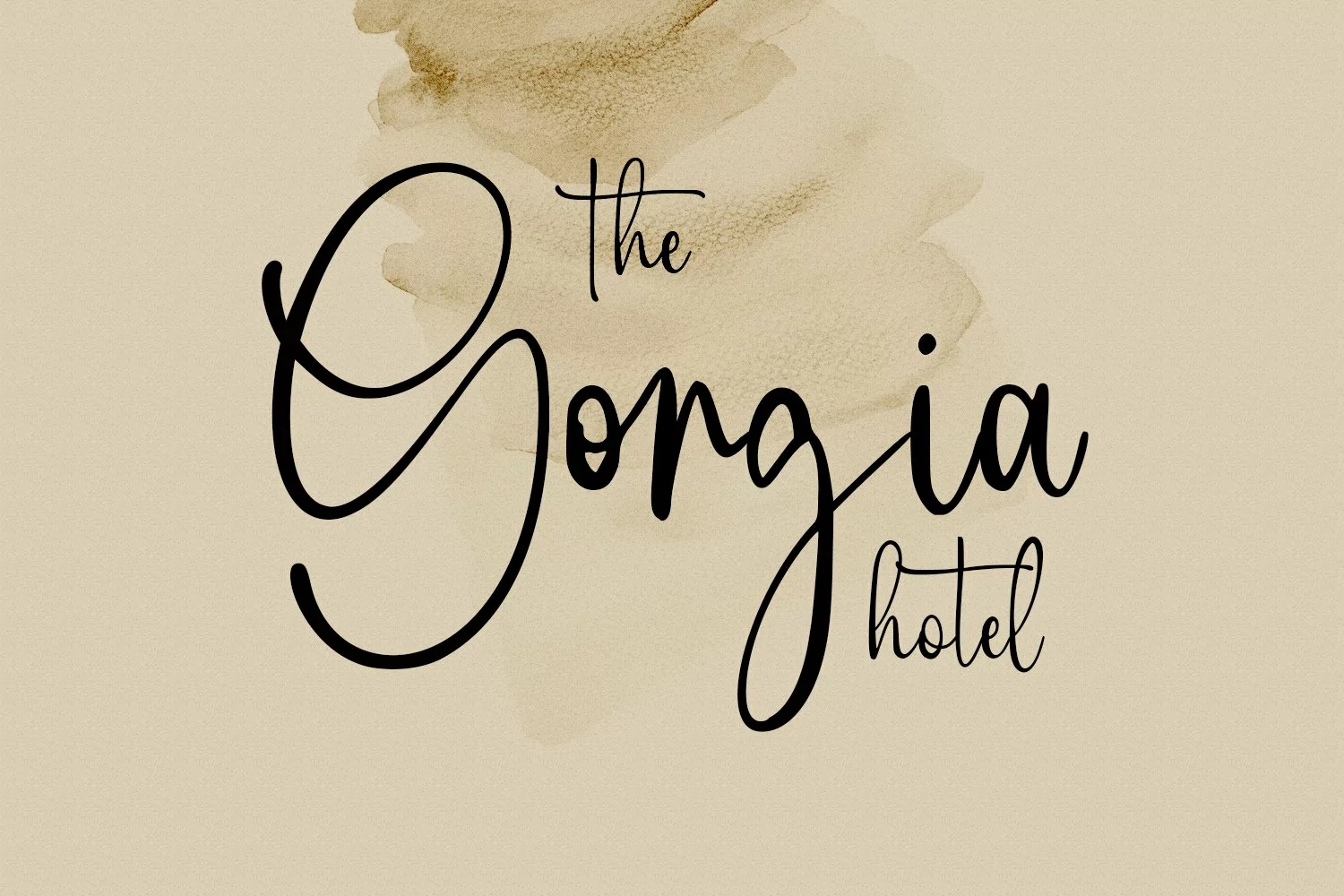
Berthillas is an upright casual script font. With high contrast stroke, fun character. To give you an extra creative work. Berthillas font support multilingual more than 100+ language. This font is good for logo design, Social media, Movie Titles, Books Titles, a short text even a long text letter and good for your secondary text font with sans or serif. Make a stunning work with Berthillas font.